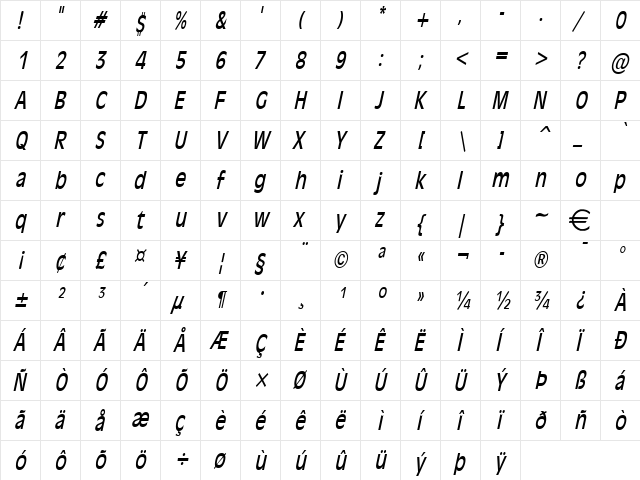
Antiqua101Thin Italic Font Preview
Design Context for Antiqua101Thin Typeface
Antiqua101Thin offers clean, dependable letterforms without strong stylistic allegiance, making it a practical choice for designers who need flexibility. The dynamic lean of this cut emphasises speed and emphasis in any layout. The delicate stroke weight brings airiness and refinement to layouts.
Pro Tip: Try Antiqua101Thin for annotation and caption copy alongside an upright companion — the contrast in angle creates a dynamic but ordered typographic system.